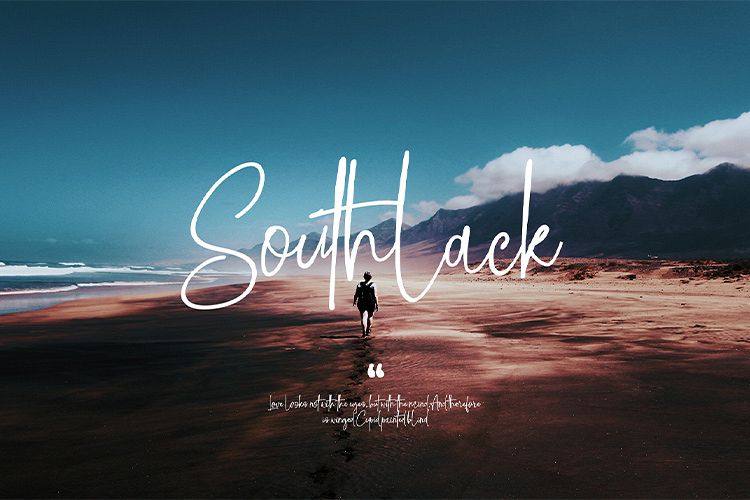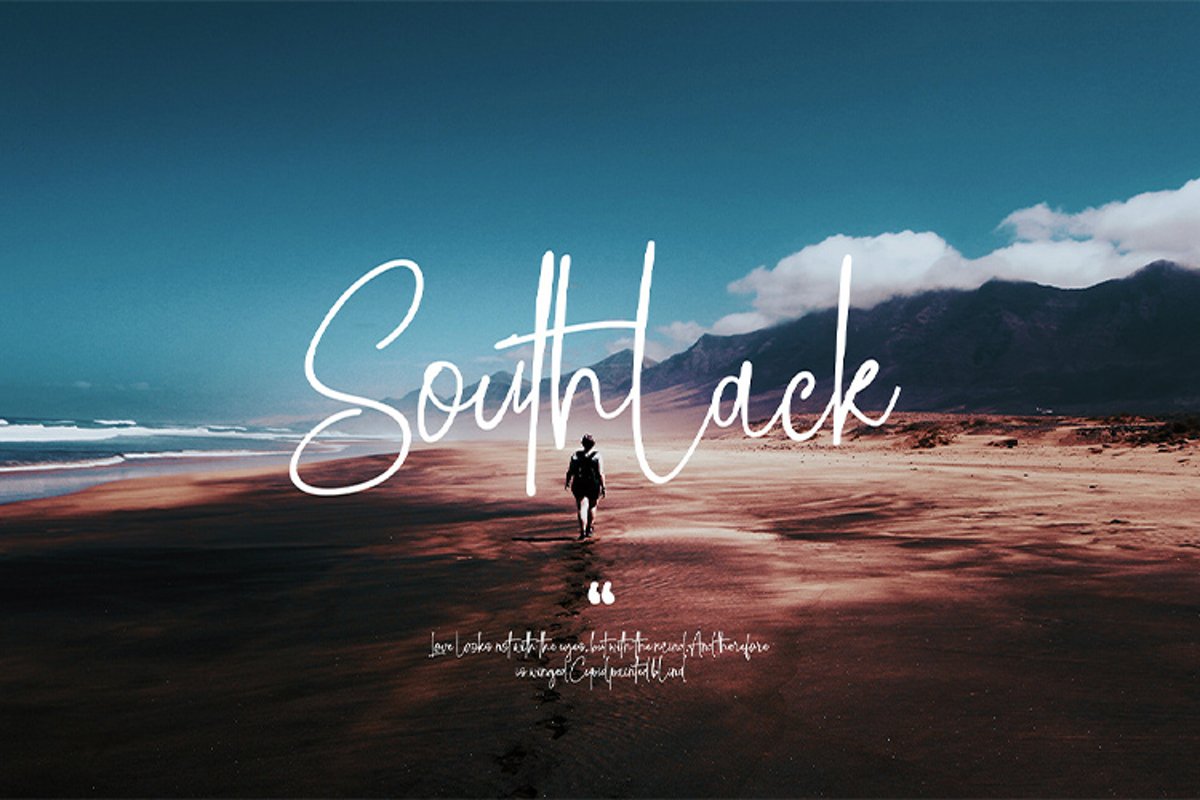
Southlack Signature
Southlack
This font is made based on the signature uniqueness. Southlack signature fonts have a natural connection, handwritten indentations, and signature features.
Southlack signature font is suitable for logos, labels, social media, websites and more.
1. Upper and lower case letters
2. Standard ligature
3. Two stylistic sets
4. One alternative for lowercase
5. Multilingual